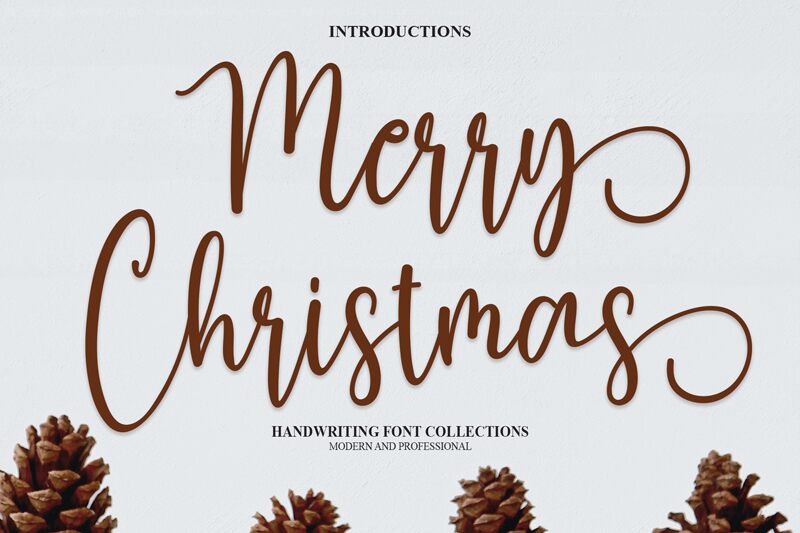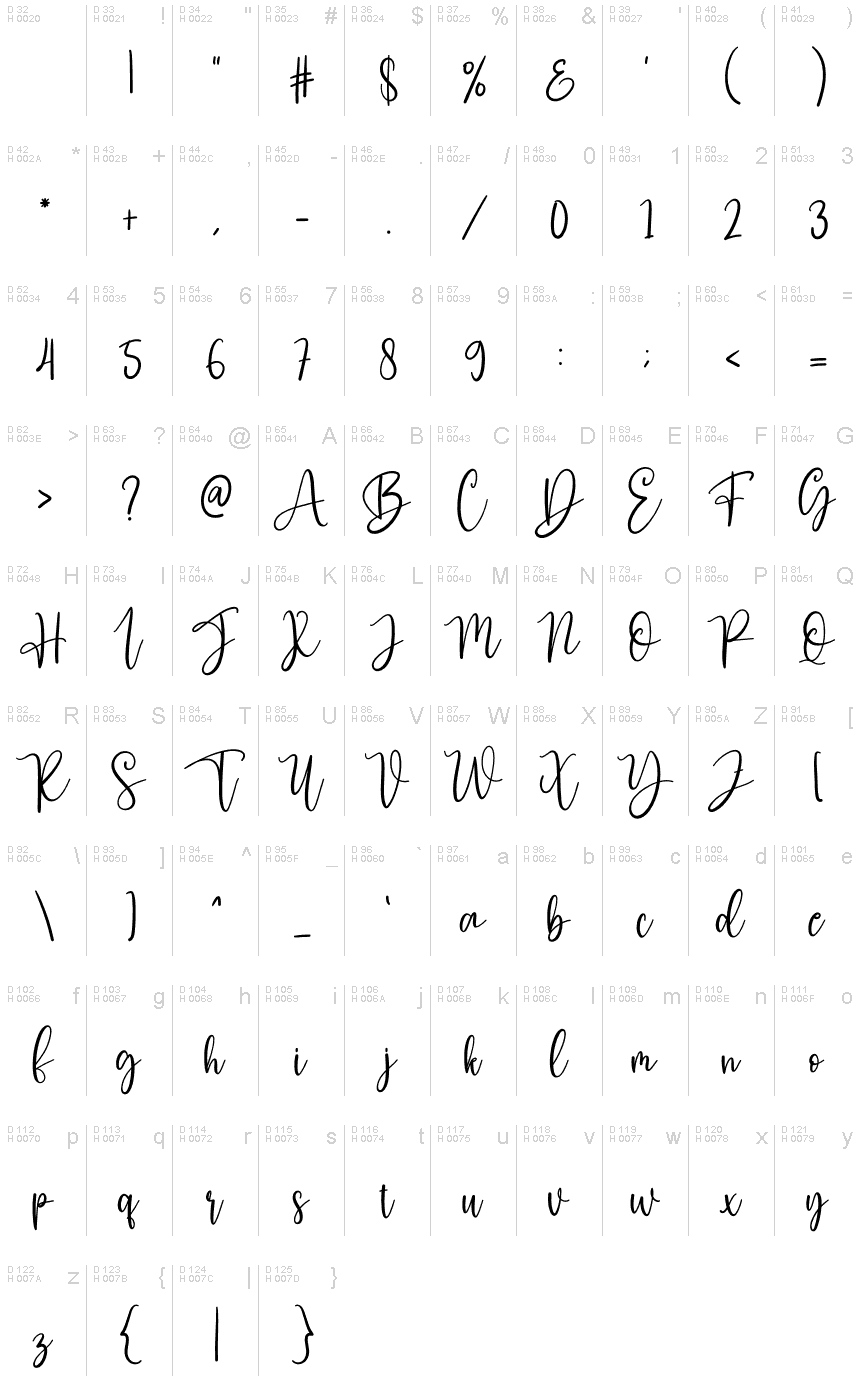
Bring some holiday cheer to your designs with Merry Christmas, the latest handwritten font by scratchones. With a semi-light weight and semi-condensed width, this font is perfect for adding a touch of whimsy to your festive projects. Whether you're creating Christmas cards, invitations, or social media graphics, Merry Christmas will help bring your designs to life. The playful style of this font will also work well for children's book covers or illustrations. Spread the joy of the holiday season with Merry Christmas!
the latest style letters are perfect for wall displays, wedding invitations, social media post logos, advertisements, product packaging, product designs, labels, photography, watermarks, invitations, stationery, and any project that requires taste handwriting.